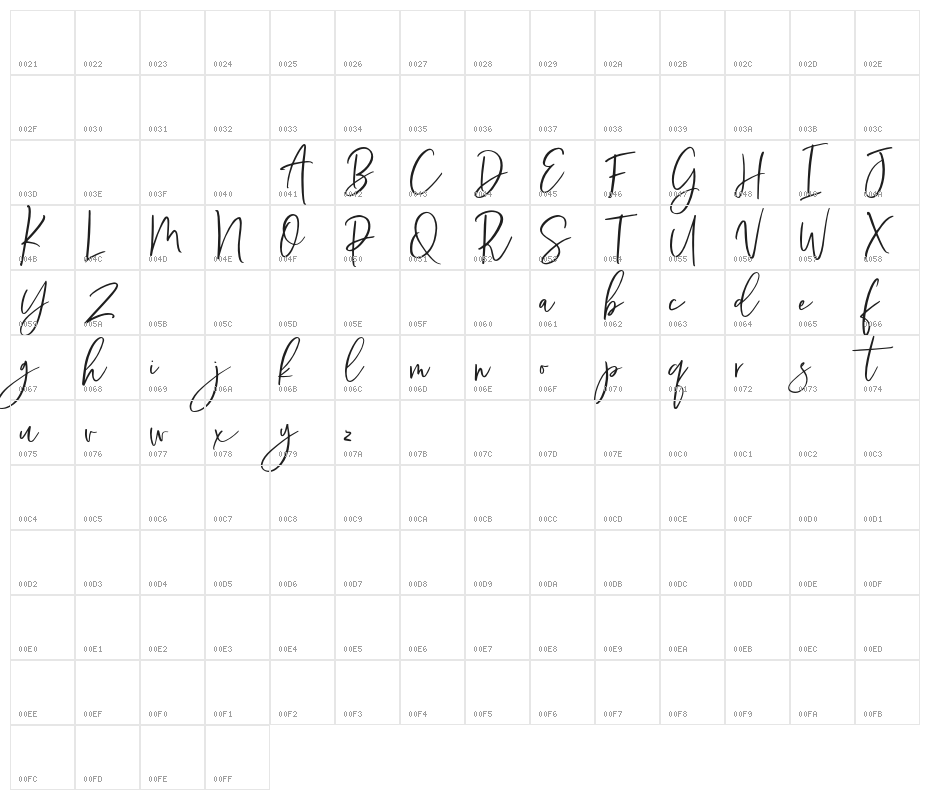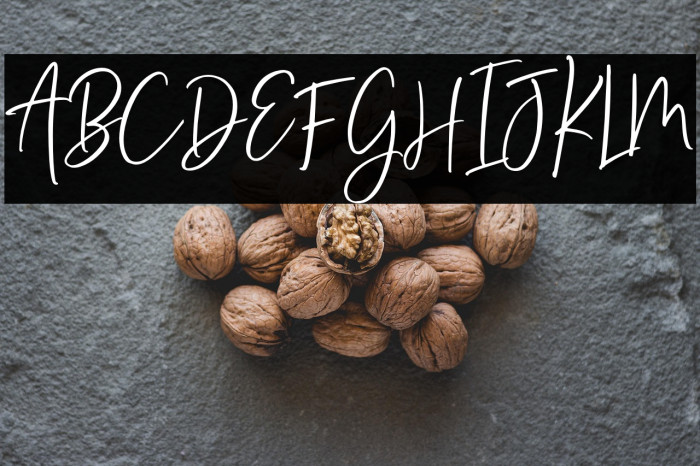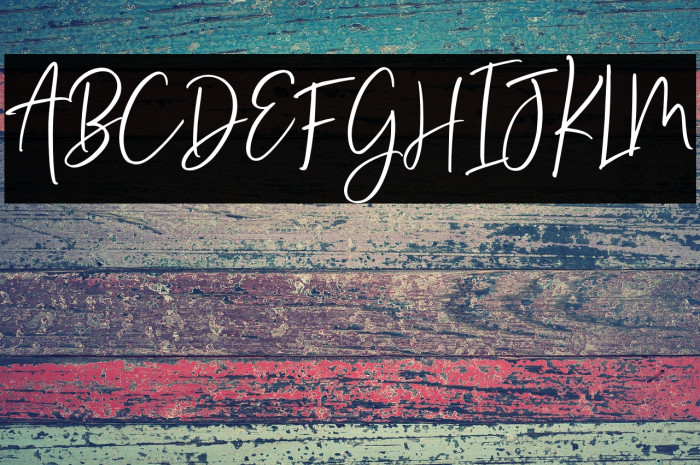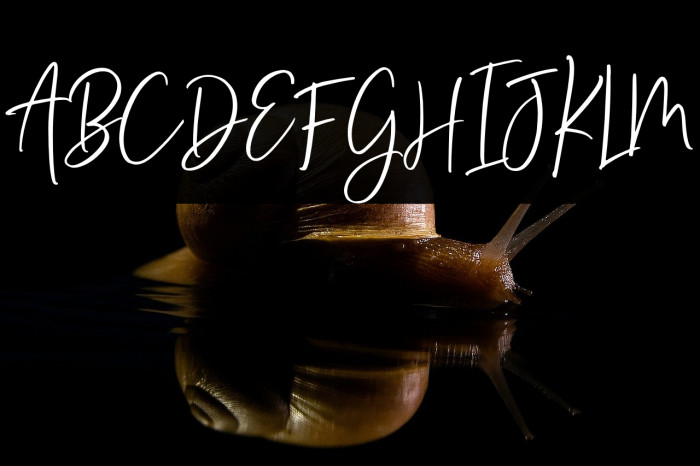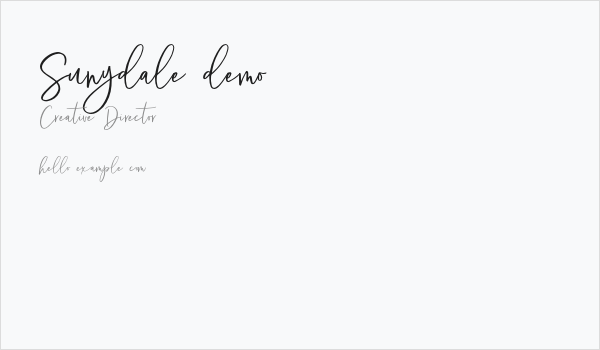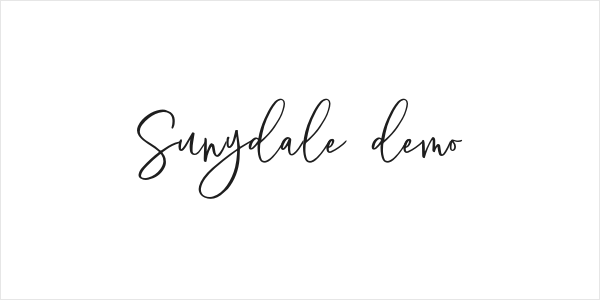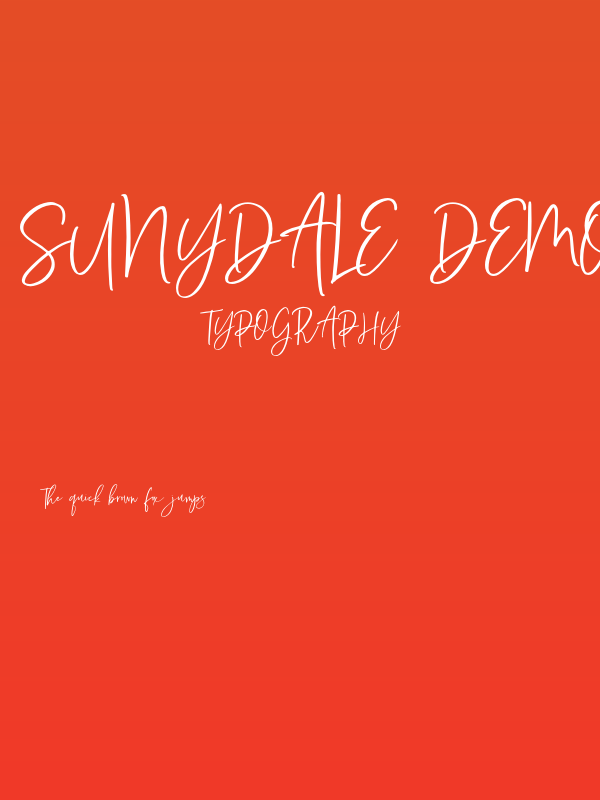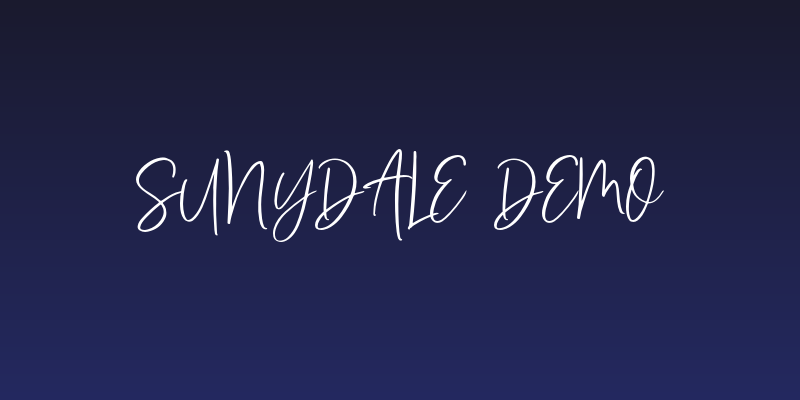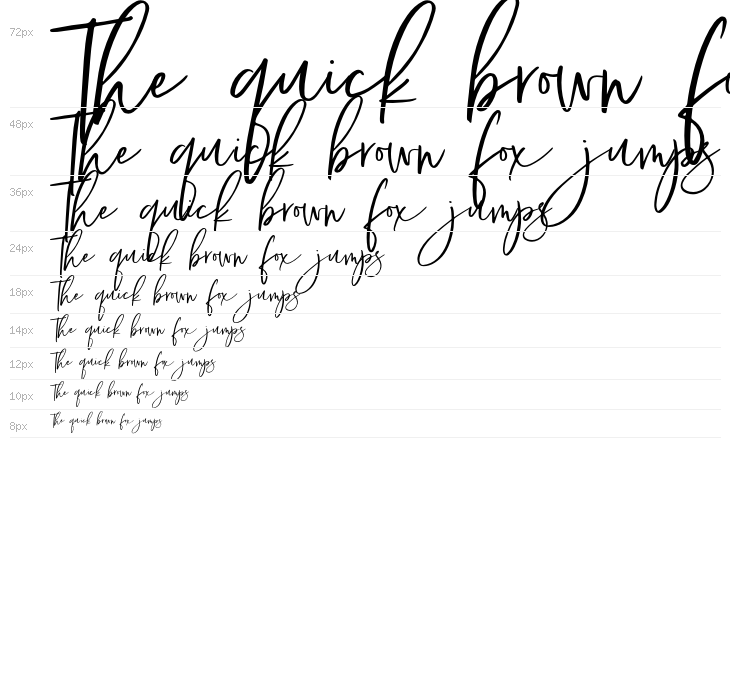
Sunydale demo Font
Sunydale demo Description
This font exudes a lively and expressive handwritten style, characterized by its fluid and dynamic strokes. The uppercase letters are bold and slightly elongated, giving a sense of movement and energy. The lowercase letters maintain a consistent flow, with some letters featuring loops and swirls that add to the overall whimsical feel. The font's playful nature is enhanced by its varying line thickness, which adds a touch of elegance and sophistication. It's perfect for projects that require a personal and artistic touch, such as invitations, greeting cards, or branding materials that aim to convey creativity and warmth.
| Proposed Projects | Ideal for invitations, greeting cards, artistic branding, and creative projects. |